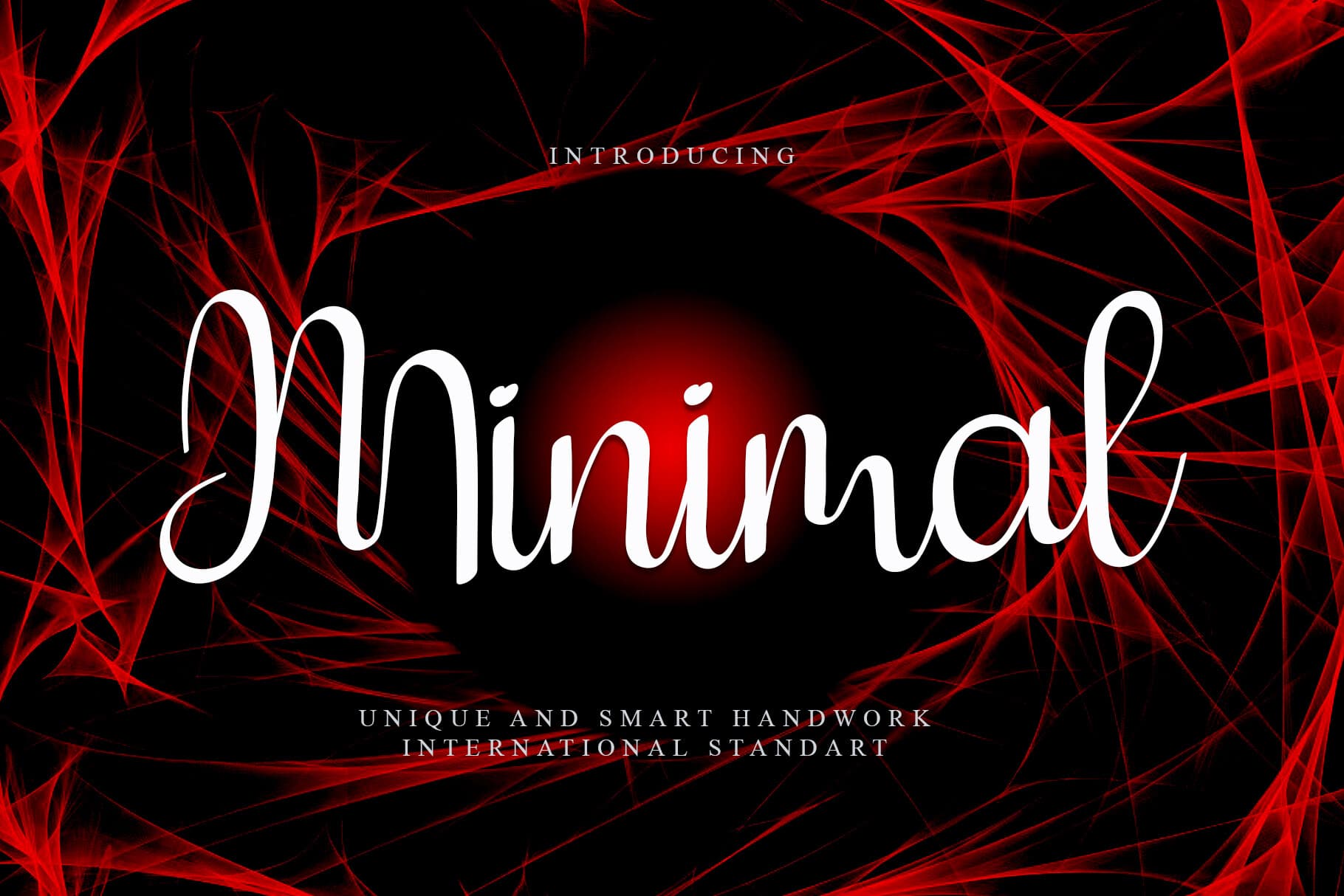
Exploring the Elegance of Minimal Font in Script Design In the world of graphic design, the right font can transform an ordinary message into a captivating visual experience. Enter Minimal, a stunning script font that effortlessly blends elegance wit...